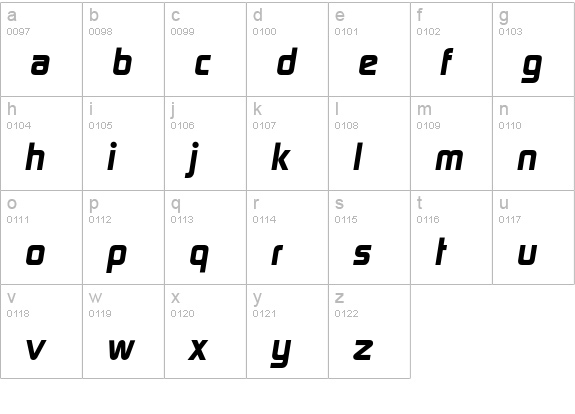
Introducing Digital-BoldItalic font - a modern and sleek typeface that combines boldness with elegance. This font is perfect for making a statement in your designs, whether it's for branding, advertising, or web content. Its sharp and stylish italicized characters add a touch of sophistication to any project. What's even better is that Digital-BoldItalic font is available for free download at FontsMarket.com. You can easily access this versatile font and elevate your design game without any cost. Don't miss out on the opportunity to enhance your creations with this eye-catching typeface. Download Digital-BoldItalic today and let your creativity shine!